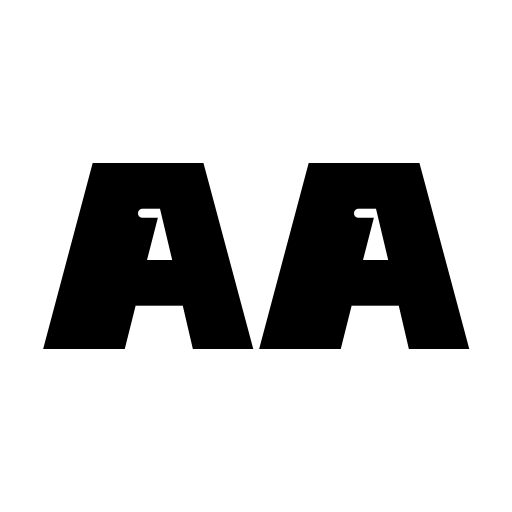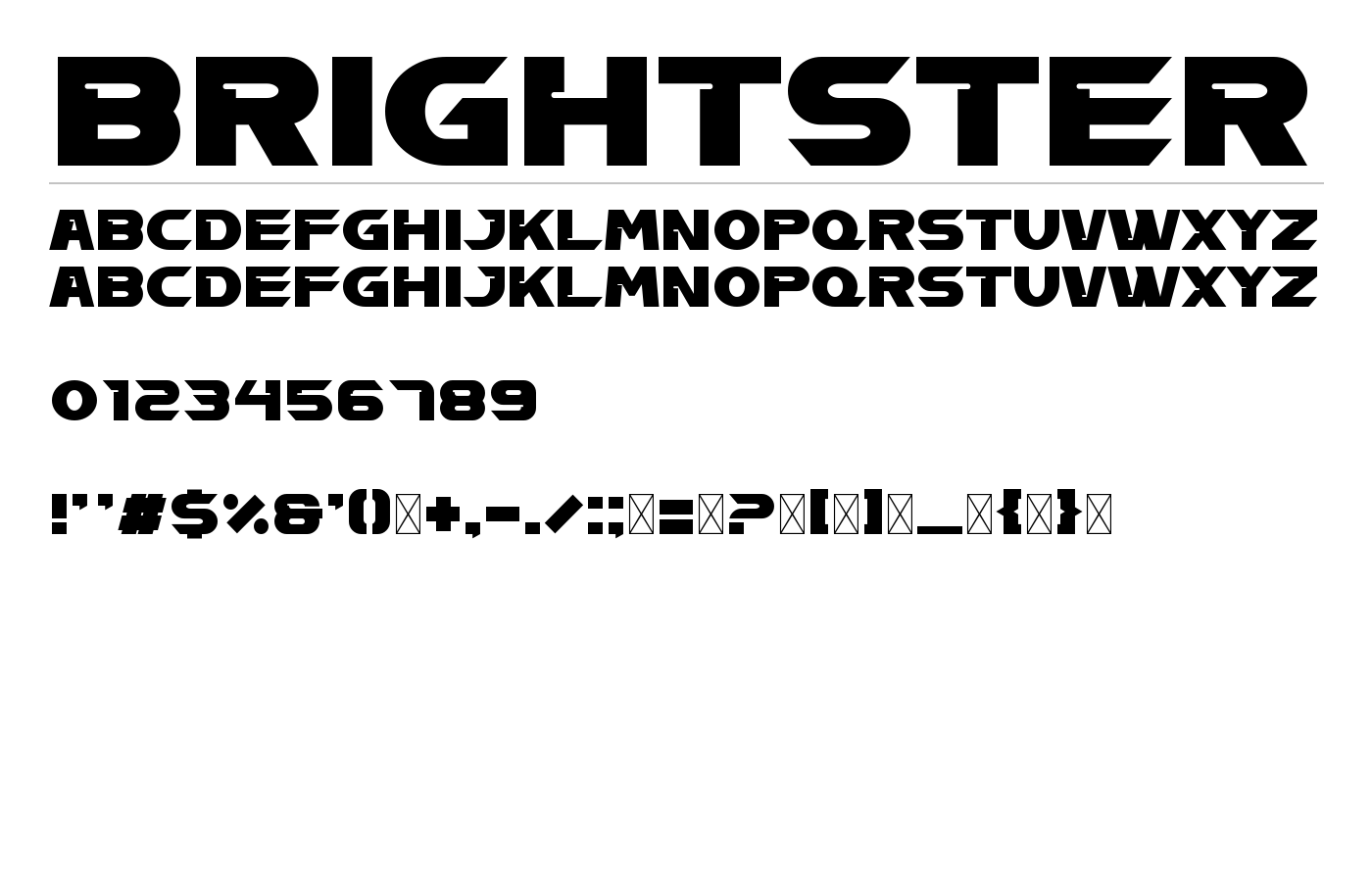
Brightster is a bold, geometric sans serif font with a strong, futuristic feel. Its thick, blocky letterforms and sharply angled cuts give it a modern and tech-savvy personality, making it ideal for impactful headlines, branding, and designs that aim to convey strength and innovation. This font works well in logos, posters, and digital interfaces where a confident and contemporary look is desired.
BRIGHTSTER Font
About BRIGHTSTER Font
| Font family | BRIGHTSTER Font |
| Designer | Maikohatta |